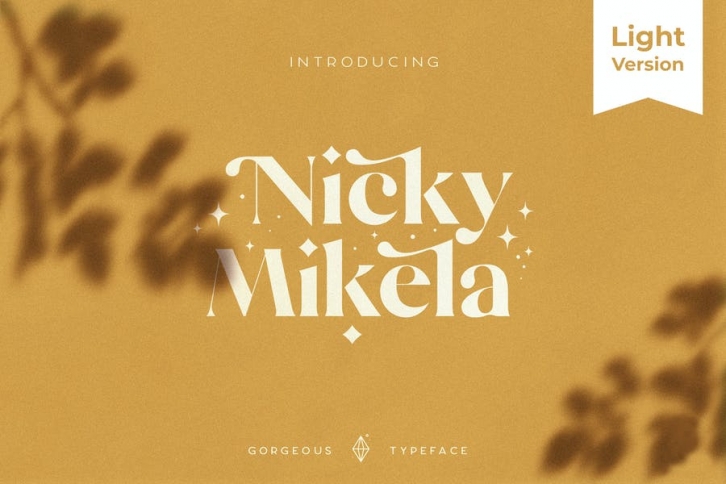
Nicky Mikela Light is a Light version of Mikela Minimalist Elegant Modern vintage font with beautiful ligatures, tons of special alternative glyphs, ornament and multilingual support. It's a very versatile font that works great in large and small sizes. Perfect for branding projects, Logo design, Clothing Branding, product packaging, magazine headers, or simply as a stylish text overlay to any background image.
• Light Weight
• Lowercase and Uppercase
• Stylistic Alternates & Ligatures
• Numerals & Punctuation
• Accented characters
• Multiple Languages Supported